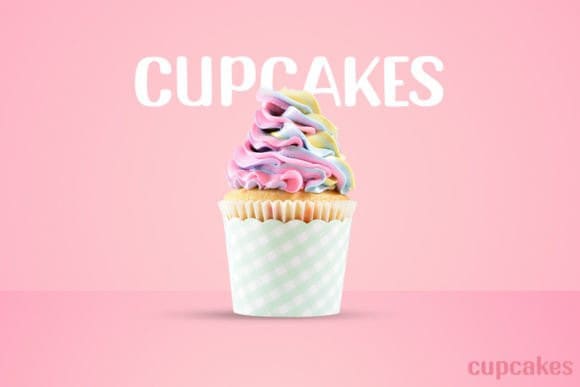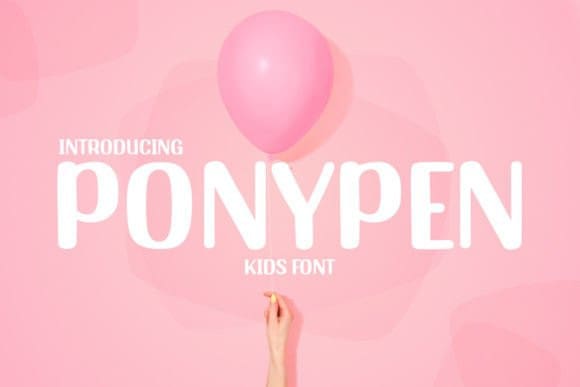
Ponypen Display Font
Ponypen Display Font, a playful and cute display font with versatile letters that look great in all caps or are used regularly in sentence cases. Perfect for birthday invitations, stationery, kids’ t-shirt designs, label, logo, branding, packaging, calendars, and more projects about kids!